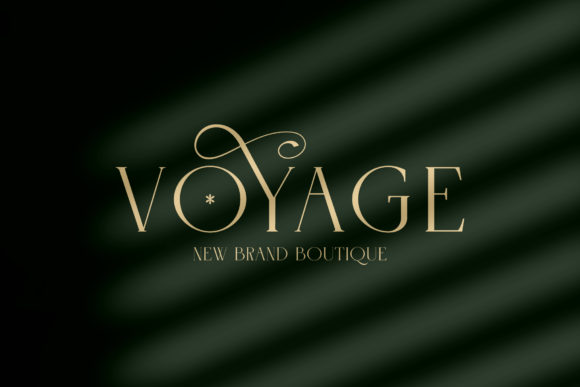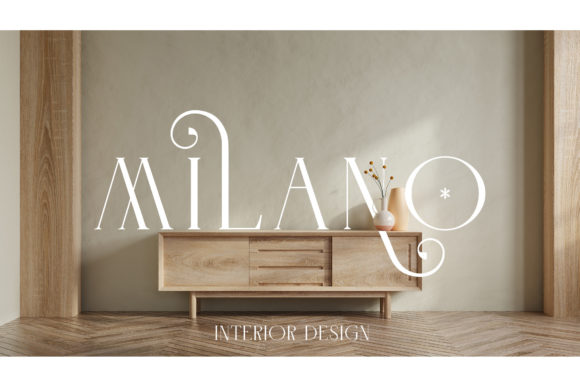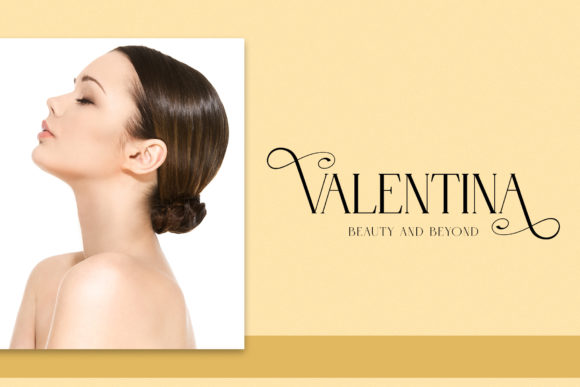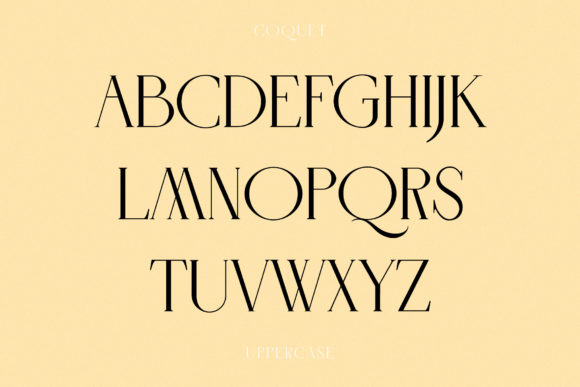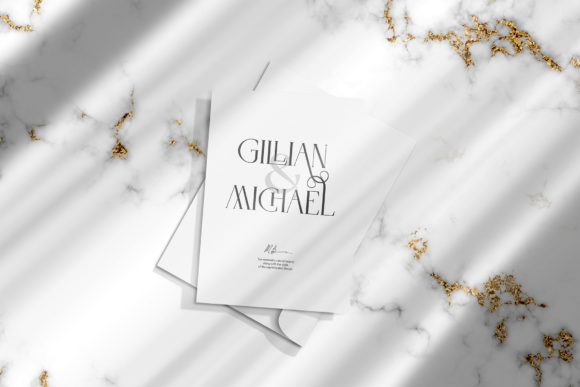
Introducing Coquet Font: Elevate Your Creations with Elegance and Style
In the world of typography, a font can make or break a design. For designers and crafters looking to add a touch of sophistication and elegance to their creations, Coquet Font is an excellent choice. This stunning, lettered serif font is not only visually appealing but also versatile and easy to use.
What is Coquet Font?
Coquet is an elegant and thin, lettered serif font that exudes style and sophistication. Its trendy and stylish design makes it perfect for a wide range of projects, from fashion and beauty branding to wedding and event planning. Whether you’re a designer looking to elevate your clients’ brands or a crafter seeking to add a personal touch to your DIY projects, Coquet Font is sure to impress.
Key Features of Coquet Font
- Elegant and Thin Design: Coquet Font boasts a sleek and slender design that adds a touch of refinement to any project.
- Lettered Serif Font: The font’s lettered serif style gives it a classic and sophisticated look that’s perfect for designs that require a bit of elegance.
- Trendy and Stylish: Coquet Font is perfect for designers and crafters who want to stay on-trend with the latest design styles.
- PUA Encoded: Coquet Font is PUA (Private Use Area) encoded, which means you can access all of the glyphs and swashes with ease. This feature makes it simple to customize your designs and add unique touches.
Benefits of Using Coquet Font
So, why choose Coquet Font for your design projects? Here are just a few benefits of using this stunning font:
- Elevate Your Designs: Coquet Font is designed to elevate your creations and add a touch of sophistication to your designs.
- Versatile: This font is perfect for a wide range of projects, from digital designs to print materials.
- Easy to Use: Coquet Font is PUA encoded, making it easy to access all of the glyphs and swashes.
- Time-Saving: With Coquet Font, you can create stunning designs in no time. The font’s elegant design and versatile features save you time and effort.
Who Can Benefit from Coquet Font?
Coquet Font is perfect for a variety of designers and crafters, including:
- Graphic Designers: Add a touch of elegance to your clients’ brands with Coquet Font.
- Wedding and Event Planners: Create stunning wedding invitations, programs, and other event materials with Coquet Font.
- Fashion and Beauty Brands: Elevate your brand’s style with Coquet Font’s trendy and sophisticated design.
- Crafters: Add a personal touch to your DIY projects, such as handmade cards, gift tags, and more.
Tips for Using Coquet Font
To get the most out of Coquet Font, here are a few tips:
- Pair with Other Fonts: Experiment with pairing Coquet Font with other fonts to create unique and interesting designs.
- Use Swashes and Glyphs: Take advantage of Coquet Font’s PUA encoding to access all of the glyphs and swashes.
- Adjust Font Size and Color: Experiment with different font sizes and colors to add depth and interest to your designs.
Coquet Font is a stunning, elegant, and thin lettered serif font that’s perfect for designers and crafters looking to elevate their creations. With its trendy and stylish design, PUA encoding, and versatile features, Coquet Font is sure to become a go-to font in your design arsenal. Whether you’re working on a fashion brand, wedding invitation, or DIY project, Coquet Font is the perfect choice.